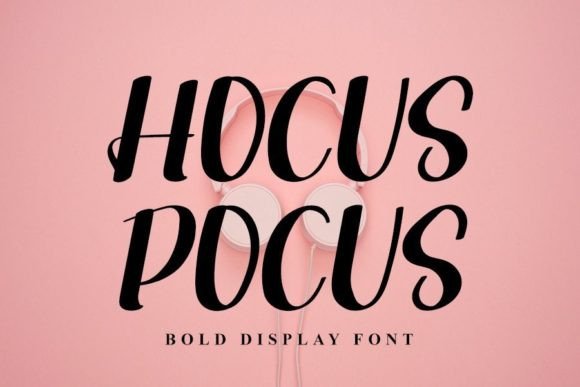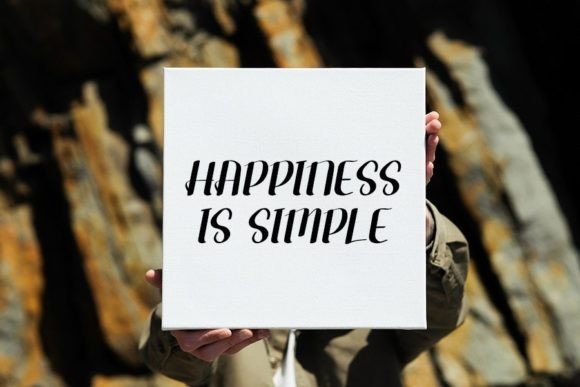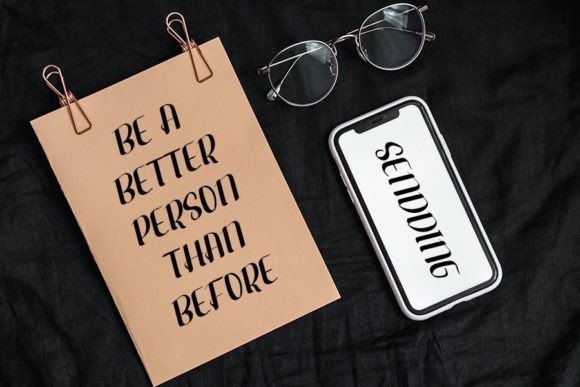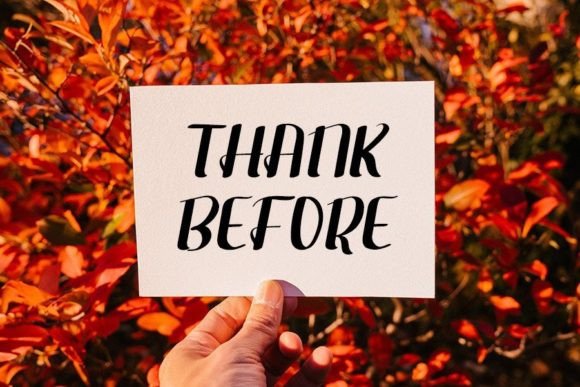
Hocus Pocus Font
About Hocus Pocus Font
Hocus Pocus, a neat and beautiful handwritten font, is characterized by an elegant touch, making it the perfect choice for your favorite projects. Immerse yourself in its incredibly distinct and timeless style, and let it be the enchanting catalyst for the creation of your spectacular designs!
The neat and beautiful handwritten qualities of Hocus Pocus bring a touch of sophistication to your projects. With finesse and charm, Hocus Pocus stands out as an elegant font, suitable for a diverse range of applications, from formal documents to more creatively expressive designs.
The distinct and timeless style of Hocus Pocus ensures that your designs carry an enchanting charm. Versatile and visually appealing, Hocus Pocus seamlessly adapts to various contexts, making it a reliable choice for different creative endeavors.
Whether you’re working on branding materials, invitations, signage, or any other design project, Hocus Pocus’s elegant touch enhances the overall aesthetic. The font becomes a refined tool that elevates your creations, adding a layer of visual magic to make your designs truly spectacular.
In essence, Hocus Pocus is more than just a font; it’s an enchanting companion for your creative journey. Let its neat and beautiful handwritten style become the foundation of your designs, creating a visual language that is both distinctive and captivating. Fall in love with Hocus Pocus and allow it to inspire you to craft designs that not only stand out but also possess a timeless and bewitching style.